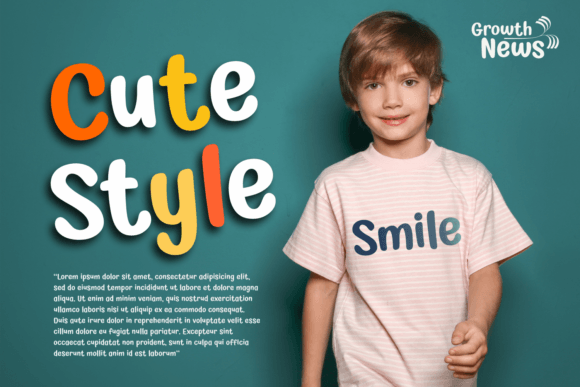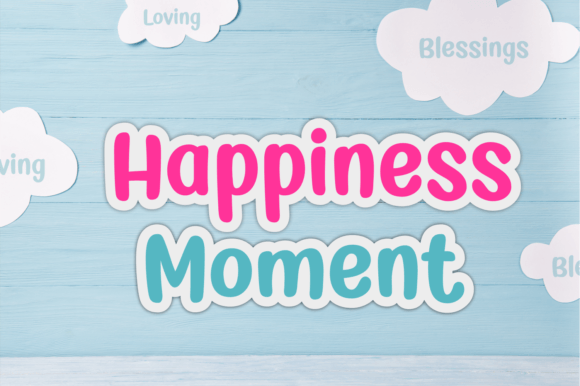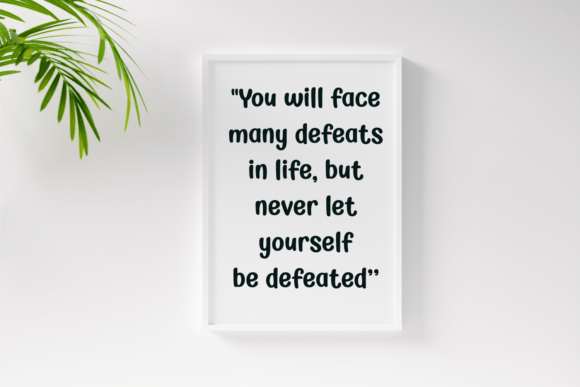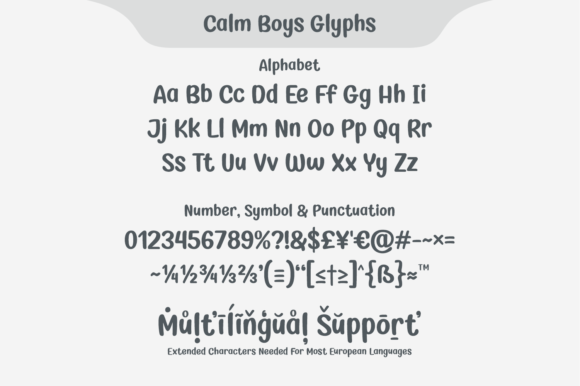
Have you ever been in the middle of brainstorming a new design, and suddenly a spark of inspiration hits you? The ideas start flowing, and you can almost see the project coming to life in your mind. That’s exactly the feeling you’ll get when you use the Calm Boys Font. This beautiful, handwritten font is the perfect addition to any design project, adding a touch of elegance and sophistication that’s hard to resist.
Whether you’re a seasoned designer or just starting out, the Calm Boys Font is a valuable tool in your creative arsenal. Its clean and compact design makes it easy to use, while its bold and captivating typography lends a unique energy to your work. With the Calm Boys Font, you can take your projects to the next level and make them truly stand out.
Calm Boys Font Key Features
- Unique Characteristics: The Calm Boys font features a unique blend of modern and traditional design elements, with subtle rounded edges and a clean, minimalist aesthetic.
Calm Boys Font Review
I recently had the chance to work with the Calm Boys font, and I have to say it’s a unique addition to any design project. Here are my thoughts on what works well and what doesn’t.
- The font has a calming effect, perfect for projects that require a soothing atmosphere.
- The script-like design gives it a personal touch, ideal for titles, headings, and quotes.
- The font is highly legible, even at small font sizes, making it suitable for body text.
- The font may not be ideal for formal or corporate projects due to its casual and relaxed vibe.
- The font lacks a bold weight, which might limit its use in headings or titles that require emphasis.
- The font’s compatibility with older systems and browsers may be limited due to its modern design.
The Calm Boys font is a great choice for projects that require a calm and personal touch. While it may not be suitable for all projects, it’s a fantastic addition to any designer’s toolkit. With a little creativity, this font can help create a unique and memorable design experience.
The Calm Boys font is perfect for creating a soothing and calming atmosphere. Some common use cases include:
- Designing a relaxing website or blog.
- Creating a calming social media post or advertisement.
- Designing a peaceful product packaging or label.
Alternatives to Calm Boys Font
The Great Vibes font is a beautiful, elegant script font perfect for adding a touch of sophistication and whimsy to your designs. It’s ideal for use in invitations, posters, and other creative projects where a playful yet refined look is desired. Great Vibes is similar to Calm Boys in its fluid, handwritten style, but with a more refined and polished appearance.
Carolyna Pro is a modern script font that exudes a sense of luxury and elegance. It’s perfect for use in high-end branding, packaging, and advertising where a sophisticated and refined look is required. While Calm Boys is more casual and laid-back, Carolyna Pro is more formal and polished, making it a great alternative for designers who want to add a touch of glamour to their designs.